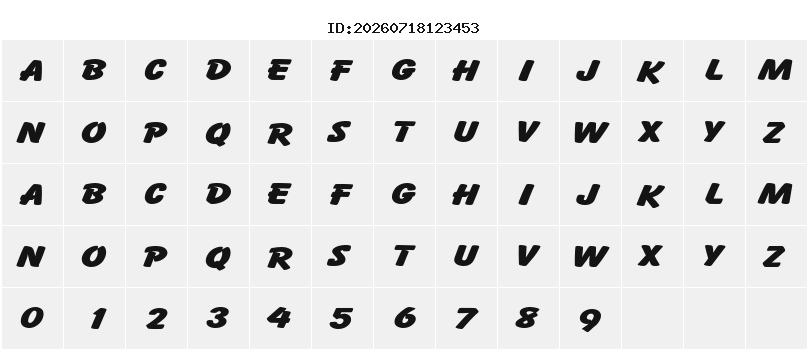
• Font Name: Cartoon Expanded
About Cartoon Expanded.ttf
Cartoon Expanded.ttf is a modern, elegant sans-serif font designed for ultimate readability and visual harmony. Perfect for branding, headlines, web design, and print materials.